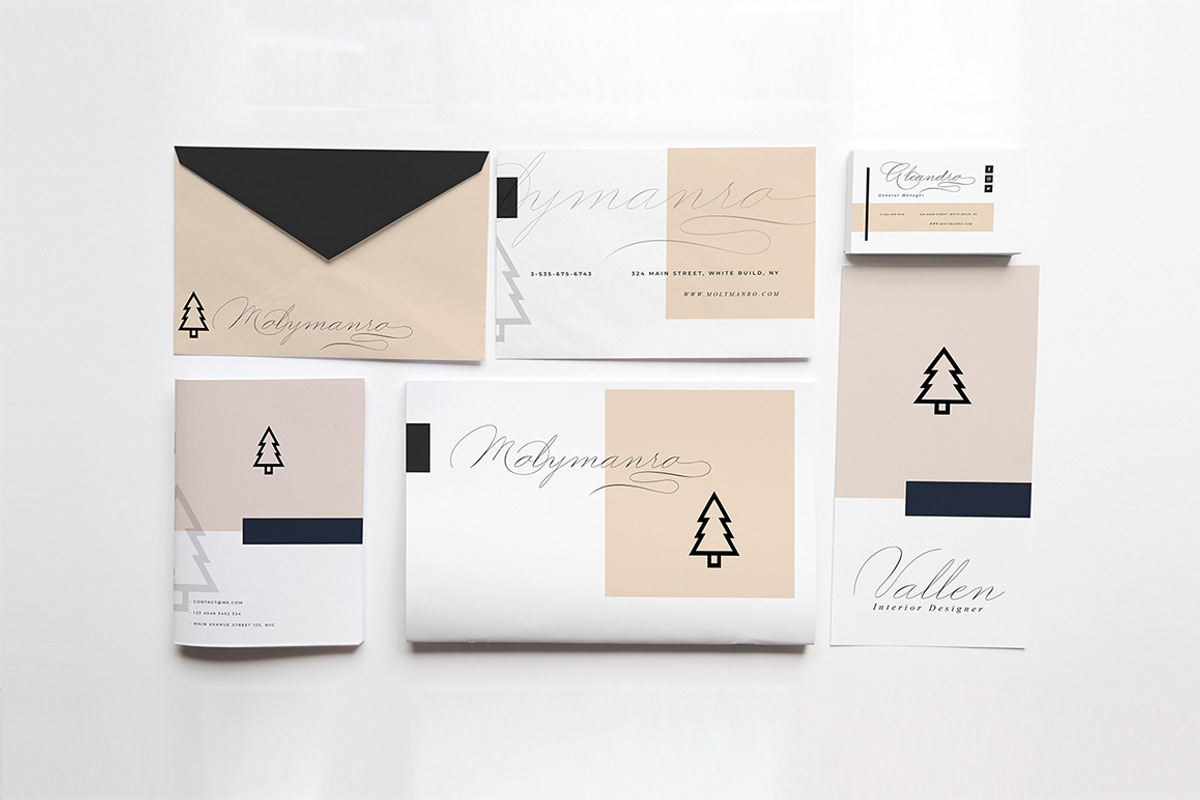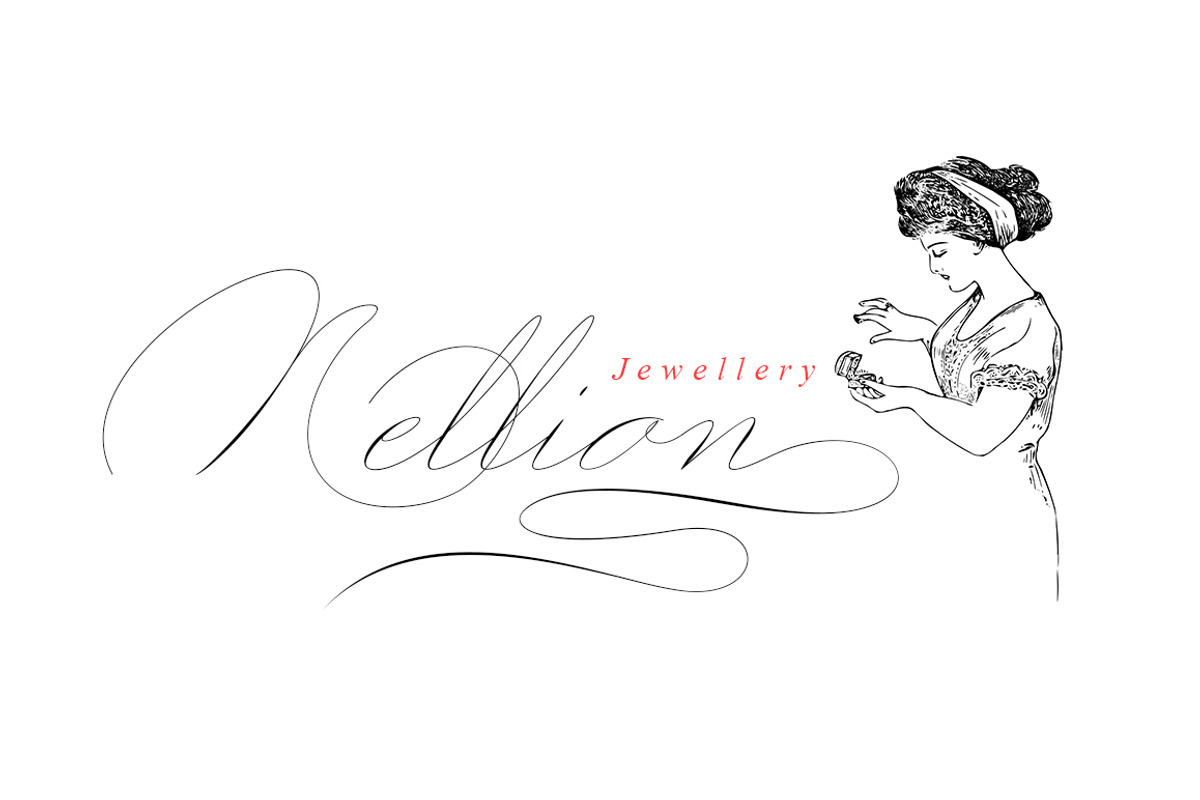
Graceful | New Update
Graceful is a classic font, I built it with my relaxed hands. designing a classic font but having a modern element in it, which makes it particularly suitable for wedding media, book covers, greeting cards, logos, branding, business cards and certificates, in fact for any design work that requires a clasik, formal and luxury.
Try Graceful, enjoy the richness of OpenType features and let her fun and elegant excitement make you happy and enhance your creativity! You can use this font very easily.
Includes multilingual support